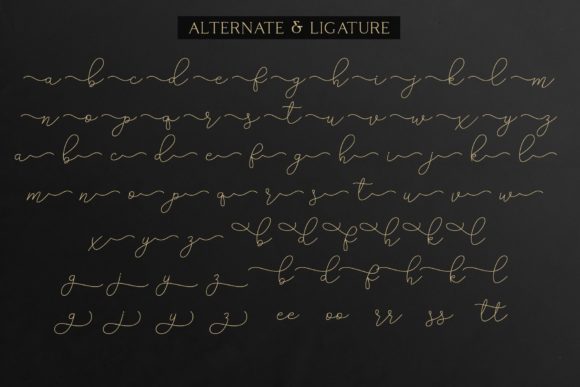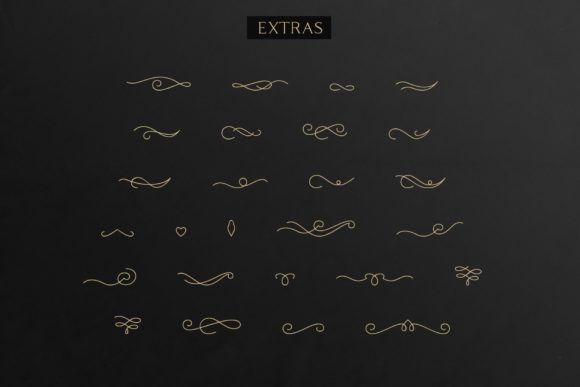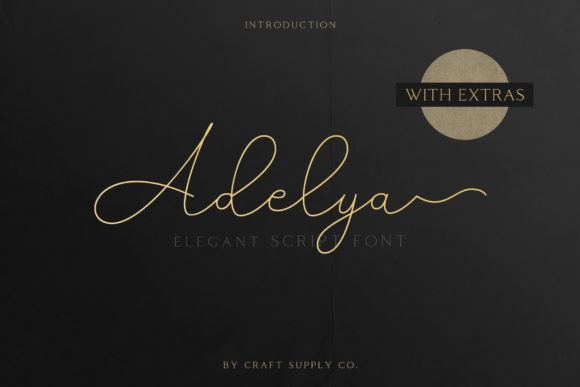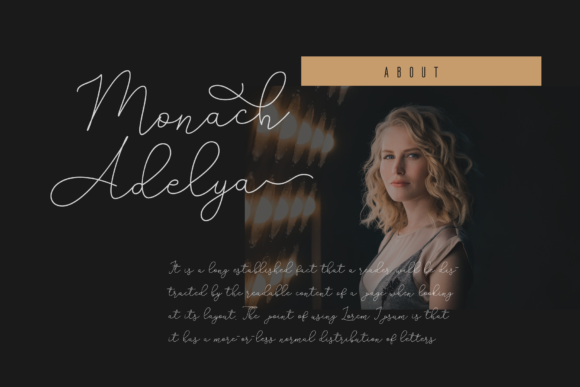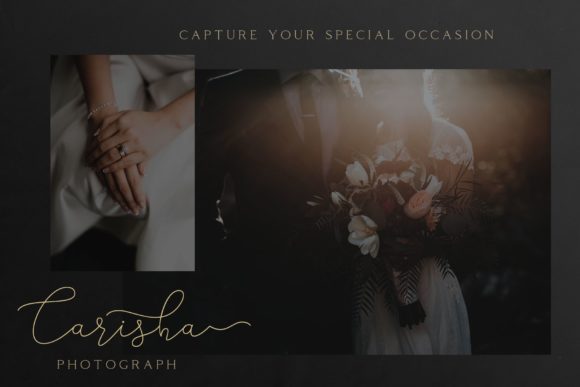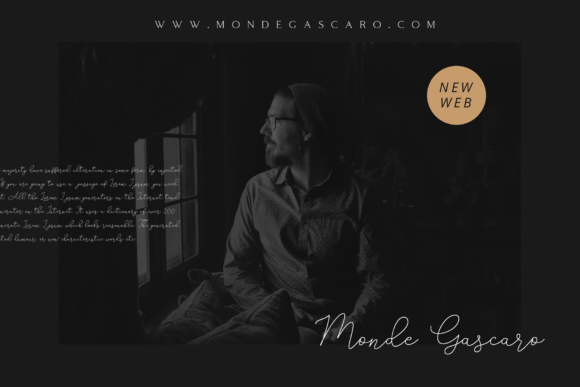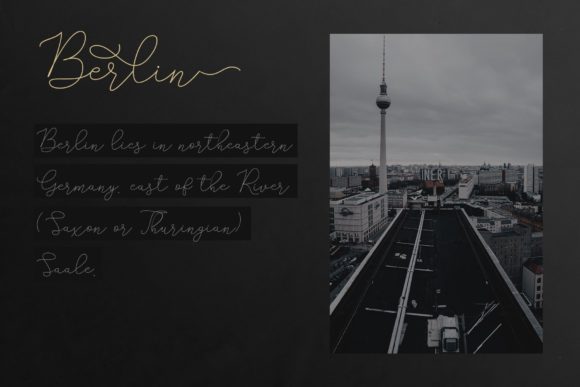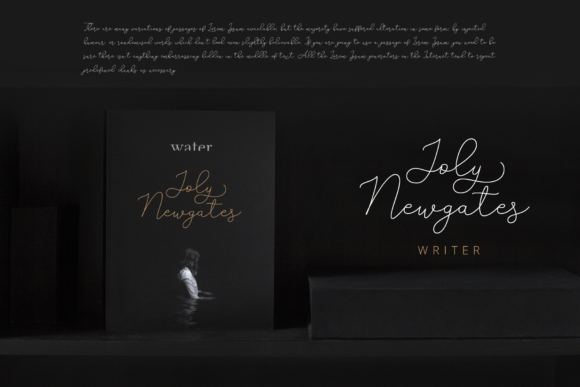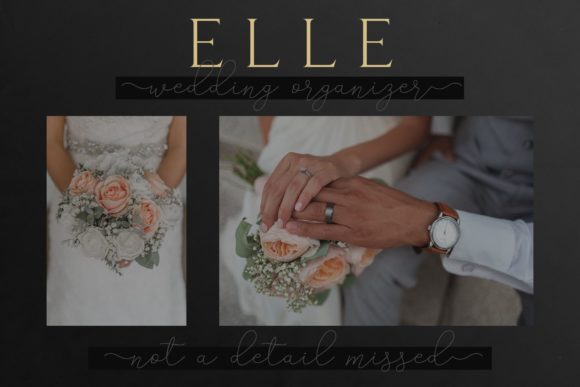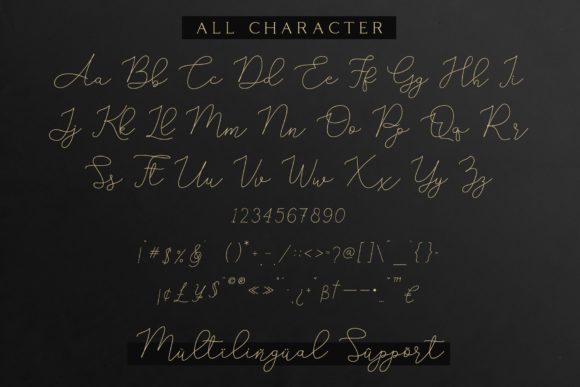
Adelya Font
About Adelya Font
The Adelya is a free-flowing monoline signature font. It has an elegant feel with a great readability.
You want to make a greeting card or a package design, or even a brand identity, craft design, any DIY project, book title, wedding invitation, identity card, packaging, or any purpose to make your art / design project look pretty and trendy? Feel free to play with all the included alternates!